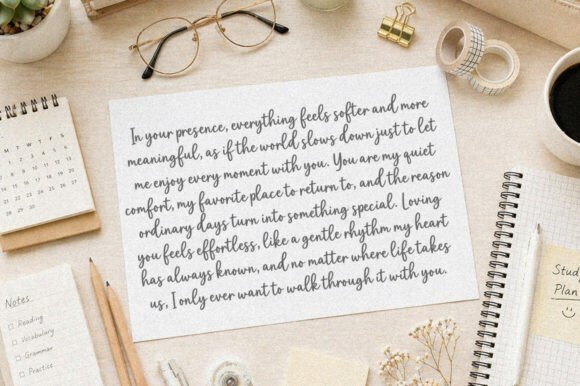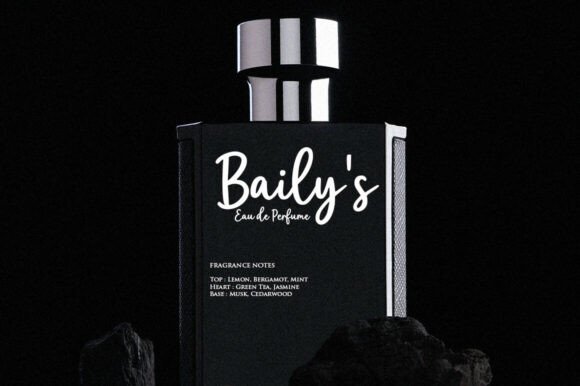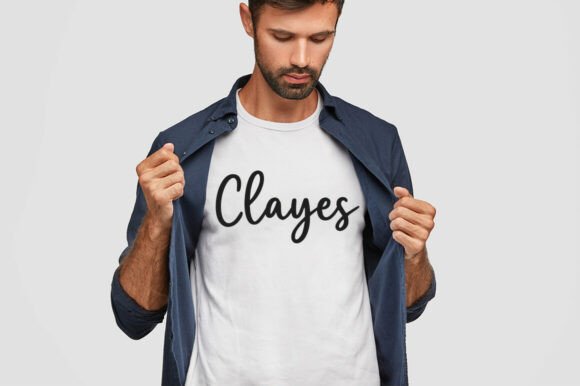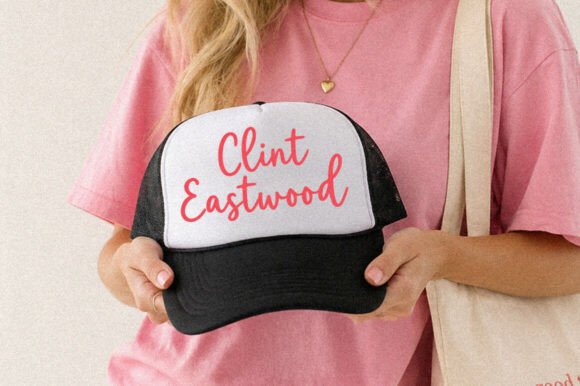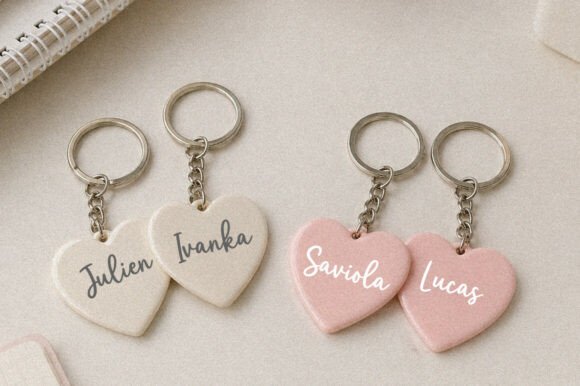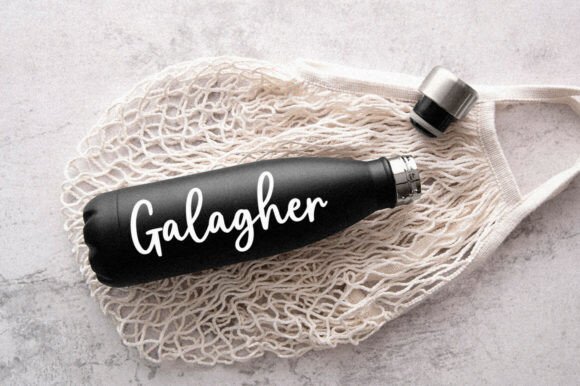
The Perfect Match for Your Next Creative Project
Do you remember that magical moment when you finally find the perfect font for your design project? The one that makes everything fall into place, and you can’t wait to see your ideas come to life? For many designers, this moment is elusive, but with the Honeymoon Font, you can make it a reality.
This beautiful semi-monoline script font is designed to evoke a sense of romance, elegance, and playfulness. With its gentle curves and smooth flow, Honeymoon Font brings a soft elegance to your designs while maintaining a modern and approachable personality. Whether you’re working on a branding project, wedding invitation, or social media content, this font is sure to add a touch of sophistication and charm. As a designer, you’ll appreciate its excellent readability and versatility, making it a valuable addition to your toolkit.
Honeymoon Font Key Features
- Font Family: A unique, modern script font designed for wedding invitations, wedding stationery, and other romantic occasions.
- Unique Characteristics: Features swashes, flourishes, and connecting strokes to add a touch of elegance and sophistication to your designs.
Honeymoon Font Review
Honeymoon Font is a beautiful, elegant script font that adds a touch of romance and sophistication to any design project. ✨ I particularly love the way it flows and the subtle variations in letterforms that give it a unique, handwritten feel.
- The font’s versatility makes it suitable for a wide range of applications, from wedding invitations to luxury branding.
- The varying line heights and letter spacing create a natural, organic look that’s perfect for adding a personal touch to your designs.
- The font’s high-quality rendering ensures that it looks great in both print and digital formats.
- ⚠️ The font may not be suitable for projects that require a more modern or edgy feel, as it has a decidedly traditional, romantic aesthetic.
Overall, I think Honeymoon Font is a beautiful and versatile font that can add a touch of elegance to any design project. While it may have some limitations, its unique charm and high-quality rendering make it well worth considering for designers looking to create romantic or luxurious designs.
Getting the Most Out of the Honeymoon Font
To get the most out of the Honeymoon Font, use it for:
Wedding invitations, save-the-dates, and other wedding-related designs.
Romantic and whimsical designs, such as love quotes and couple’s portraits.
The Honeymoon Font is commonly used for:
Wedding stationery, including invitations, thank-you cards, and RSVP cards.
Love quotes and couple’s portraits, often used for social media posts and gift ideas.
Wedding-themed designs, such as cake toppers, wedding decorations, and wedding favors.
Alternatives to Honeymoon Font
Playfair Display is a high-end serif font ideal for luxury branding, high-end fashion, and weddings. Its elegant and sophisticated design makes it perfect for formal invitations, wedding stationery, and other formal events.
Playfair Display has a more elegant and refined feel compared to Honeymoon Font, which is often described as whimsical and romantic. Playfair Display is better suited for high-end and sophisticated designs, while Honeymoon Font is ideal for more playful and vintage-inspired designs.
Great Vibes is a modern script font perfect for wedding invitations, stationery, and other romantic designs. Its flowing and elegant design makes it ideal for creating a sense of romance and luxury.